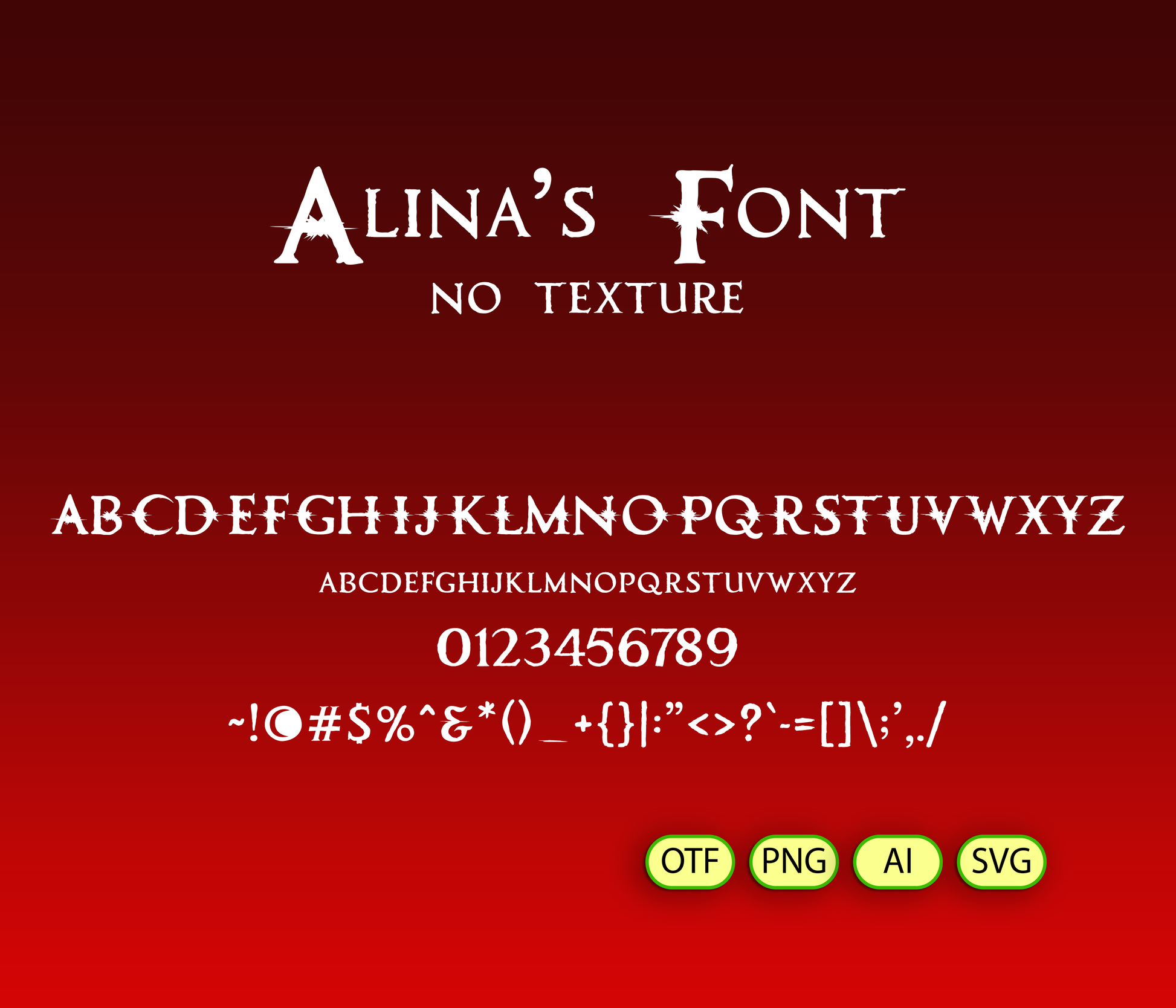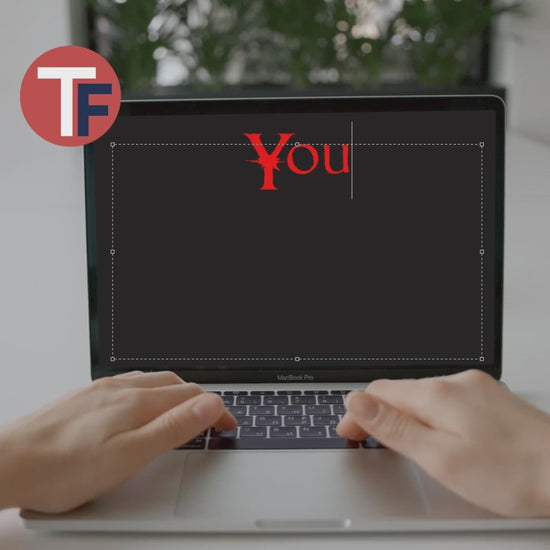
Nocturne Castle Font
Embrace the Dark Elegance with the Nocturne Castle-Inspired Font
Step into the haunting world of Nocturne Castle with our specially designed font, capturing the gothic essence of this captivating series. Ideal for fans, event planners, and designers looking to infuse projects with the eerie spirit of Nocturne Castle, this font adds dark mystique and ancient power to your creations. Perfect for event invitations, themed merchandise, or digital content, our font ensures your projects resonate with the series' brooding atmosphere.
Our Nocturne Castle-inspired font features bold, dramatic lines and intricate details reflecting the series' dark style. Ideal for:
- Event Invitations: Captivating invites for gothic-themed parties or horror nights.
- Merchandise Design: T-shirts, posters, and accessories capturing Nocturne Castle's essence.
- Digital Media: Enhance websites, blogs, and social media with striking headers.
- Educational Materials: Presentations and worksheets on mythology, storytelling, or gothic architecture.
- Personal Projects: Add dark elegance to scrapbooking, crafts, or home decor inspired by Nocturne Castle.
Infuse Your Designs with Gothic Power Our Nocturne Castle font empowers you to infuse your designs with its dark spirit. Whether for promotional materials, unique merchandise, or personal projects, this font communicates the depth and mystery of Nocturne Castle. Ready to elevate your projects with gothic majesty? This font unlocks a world of epic design.